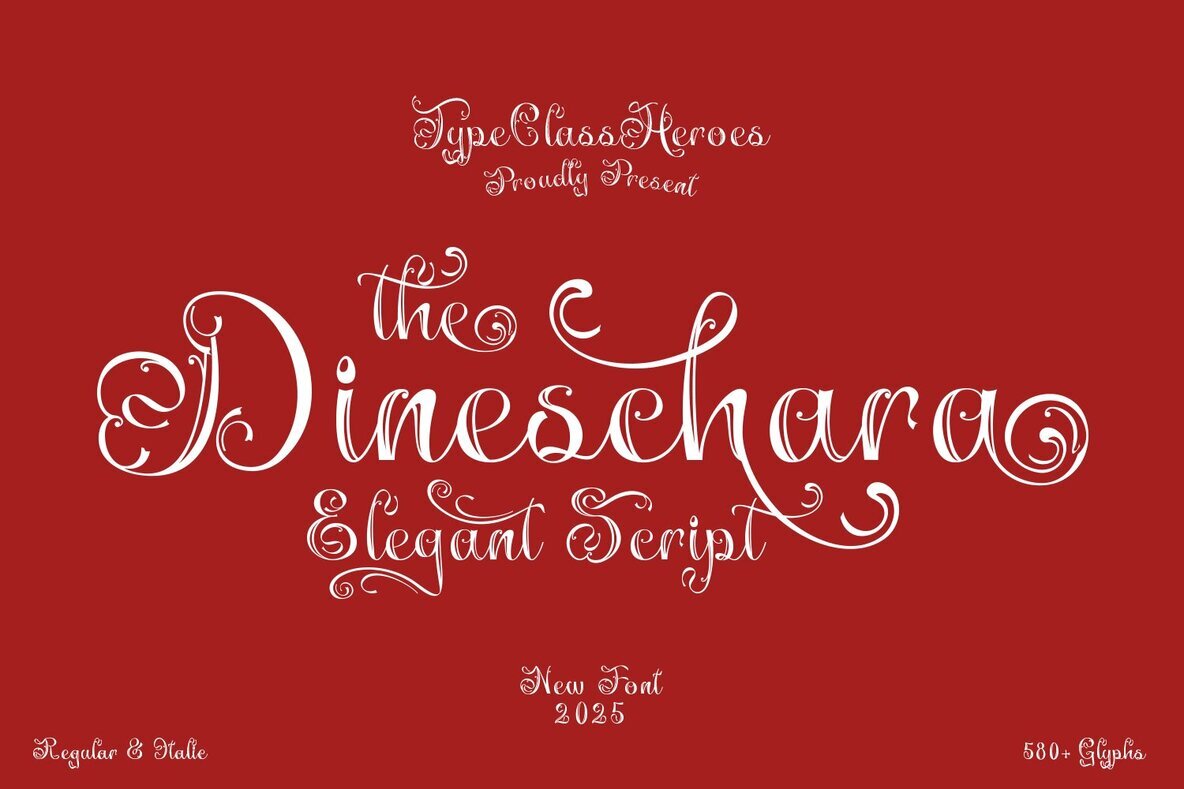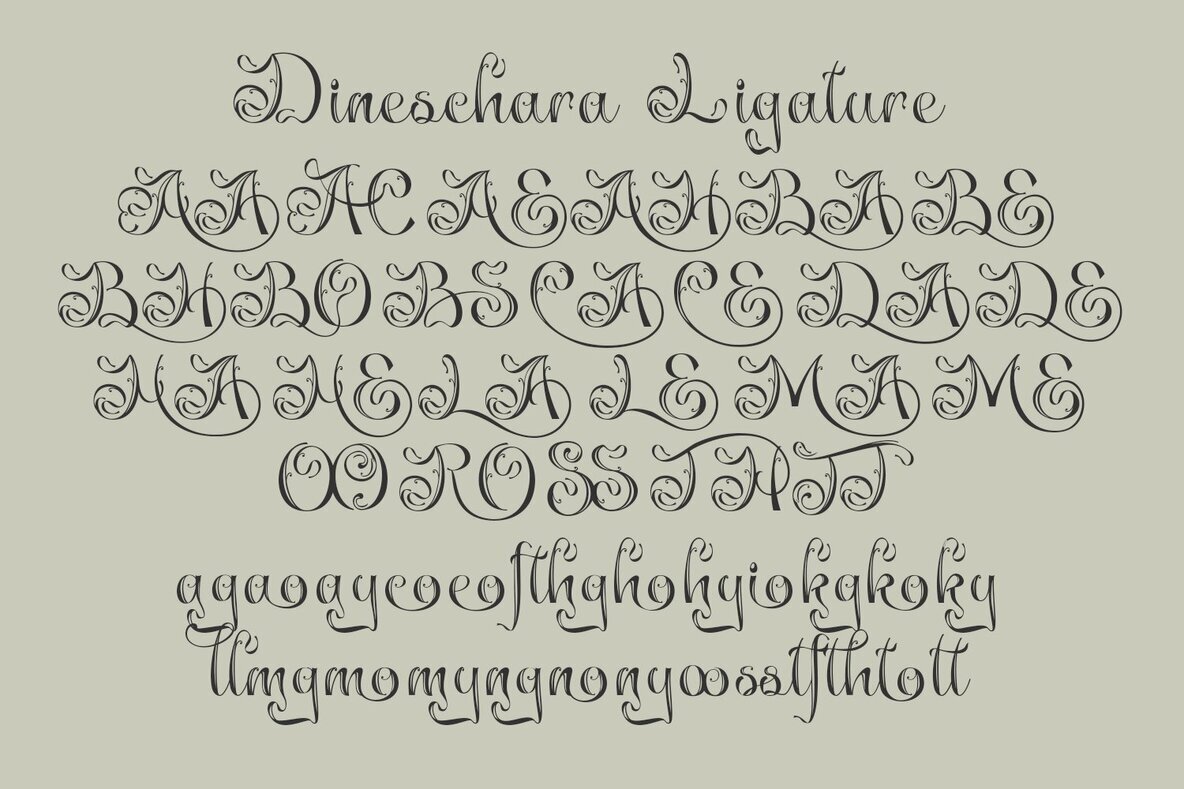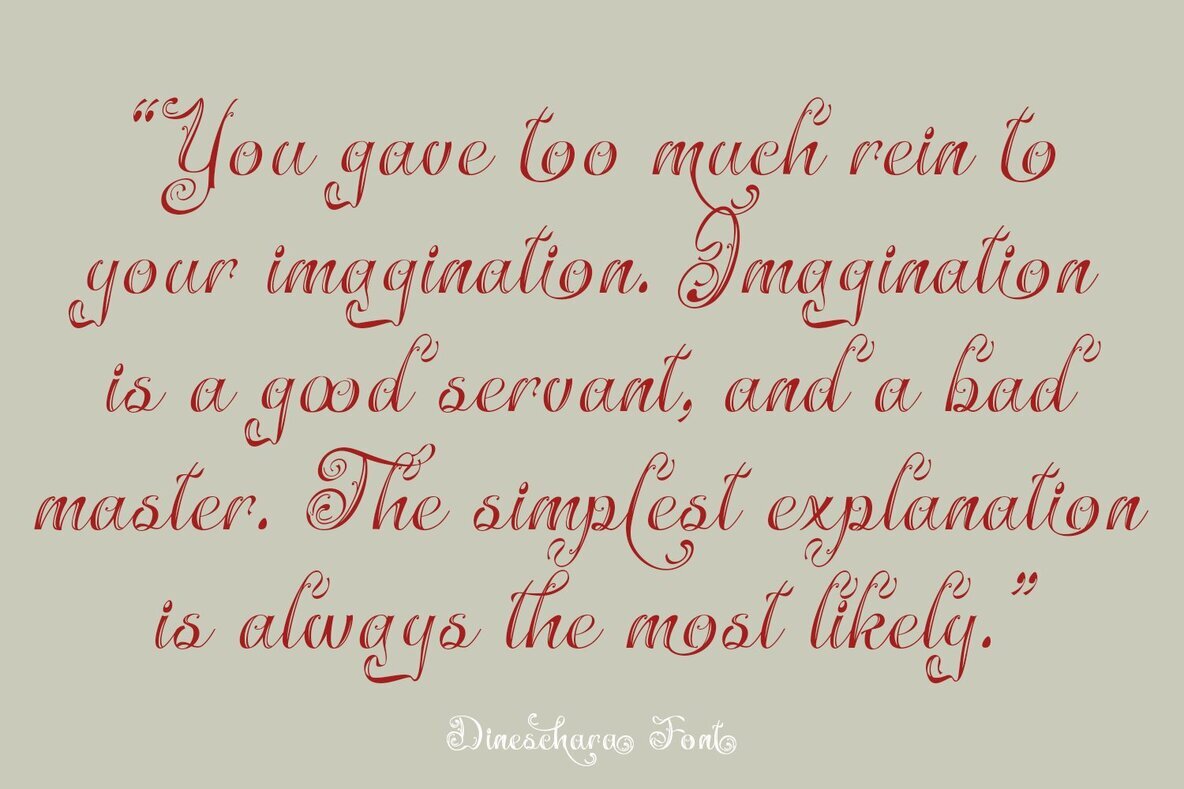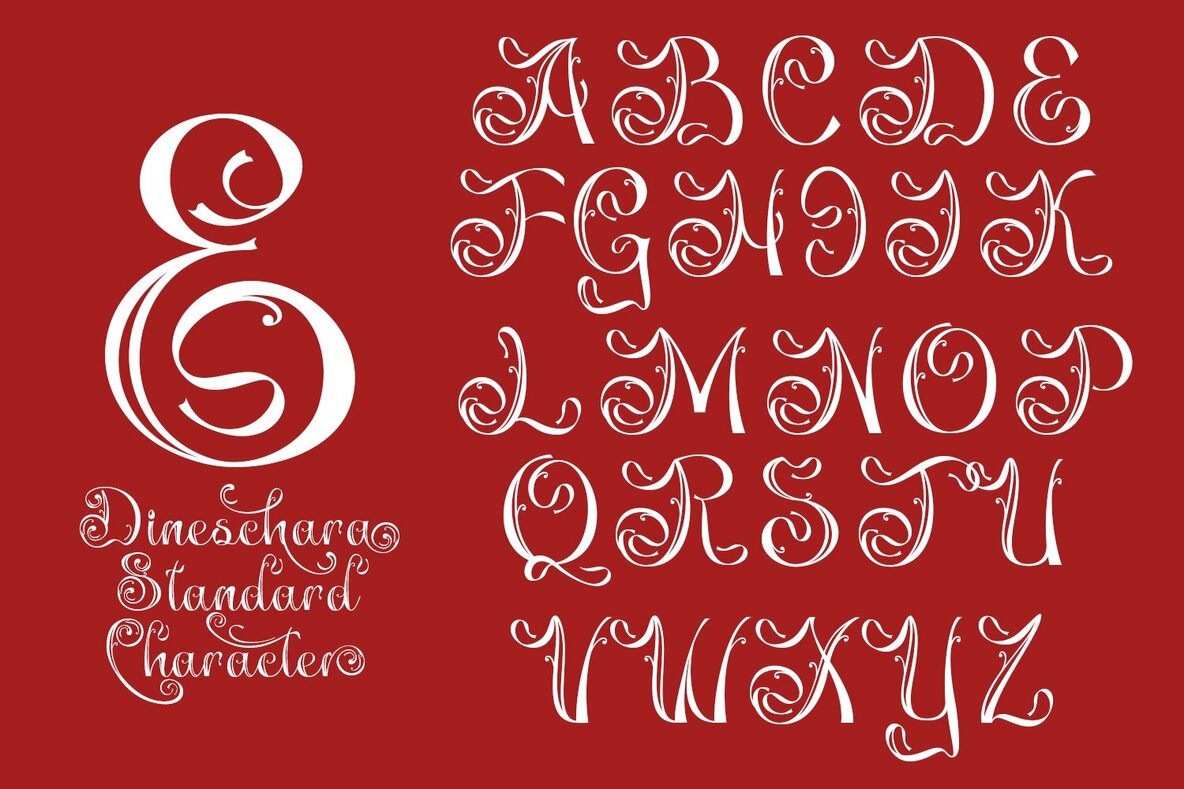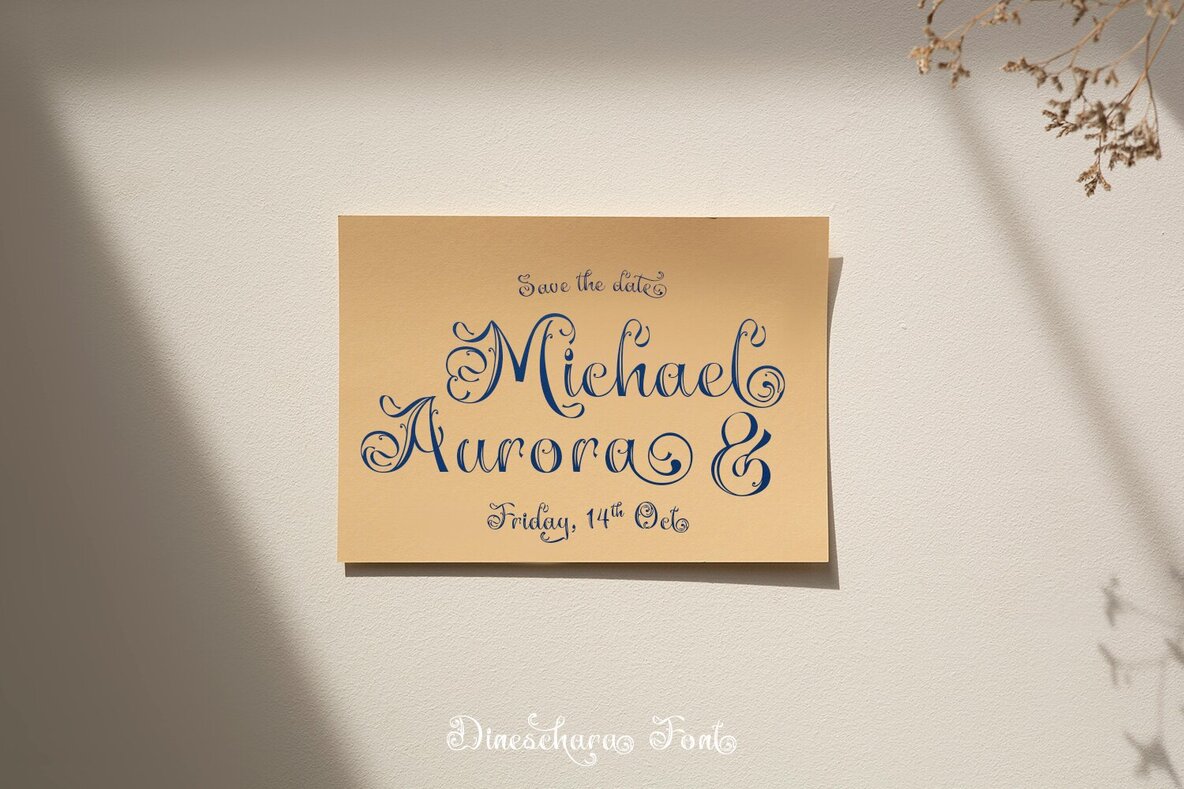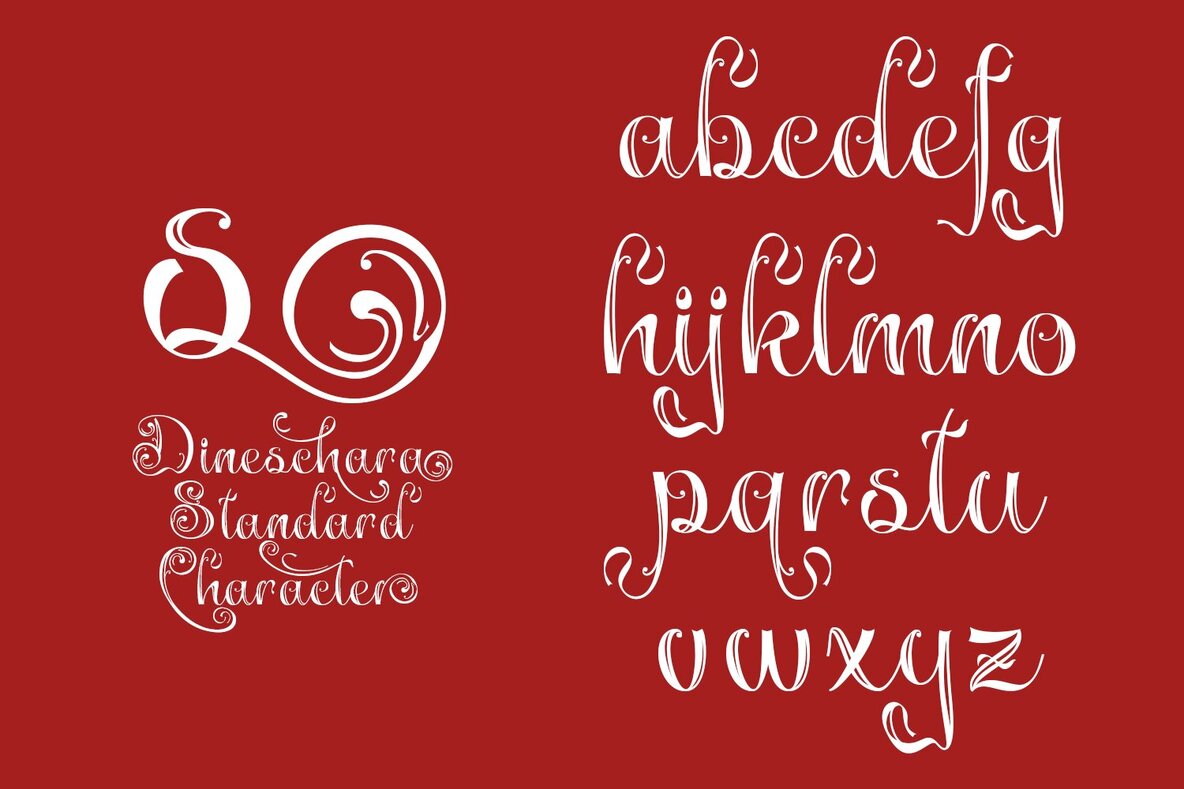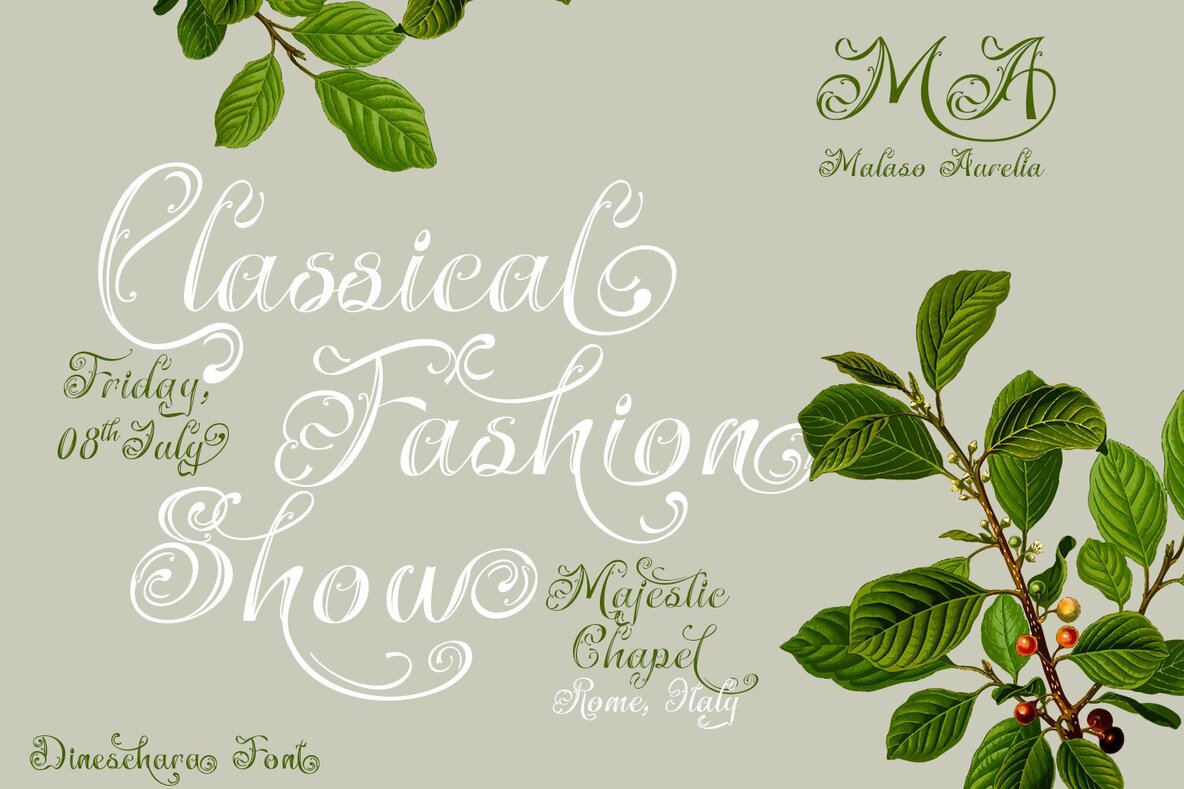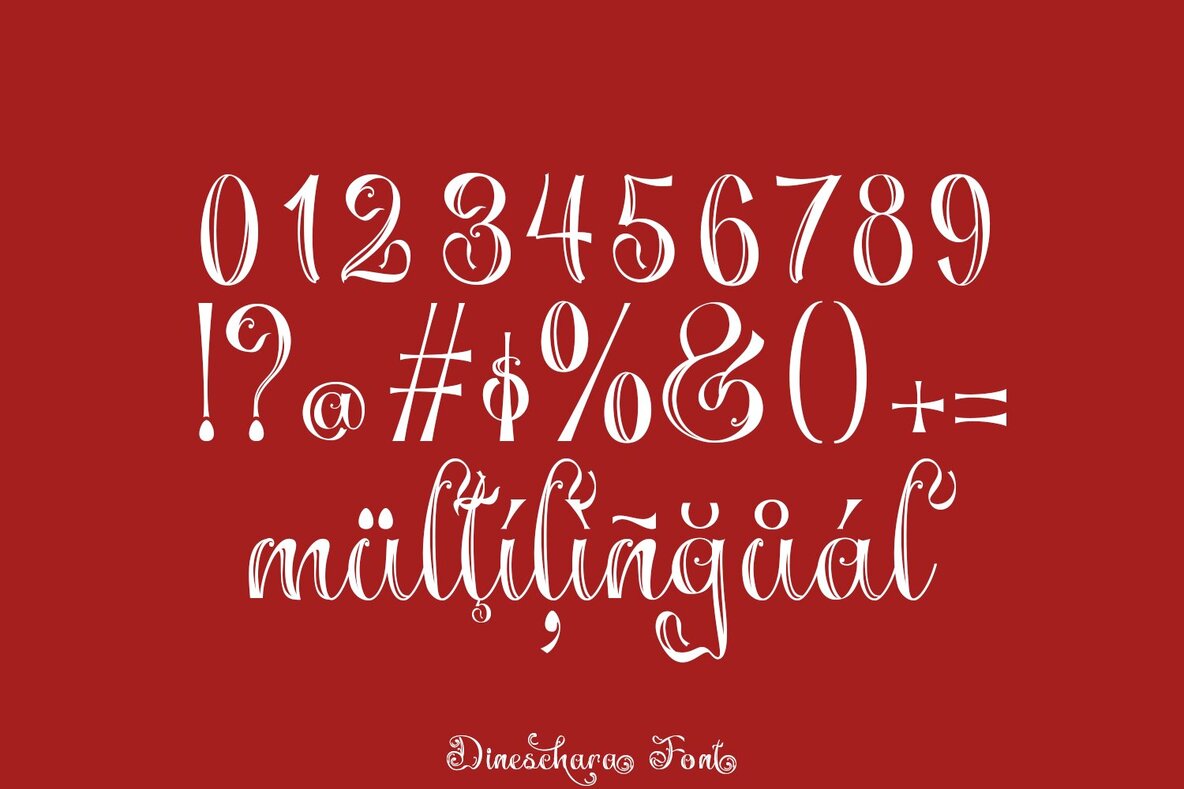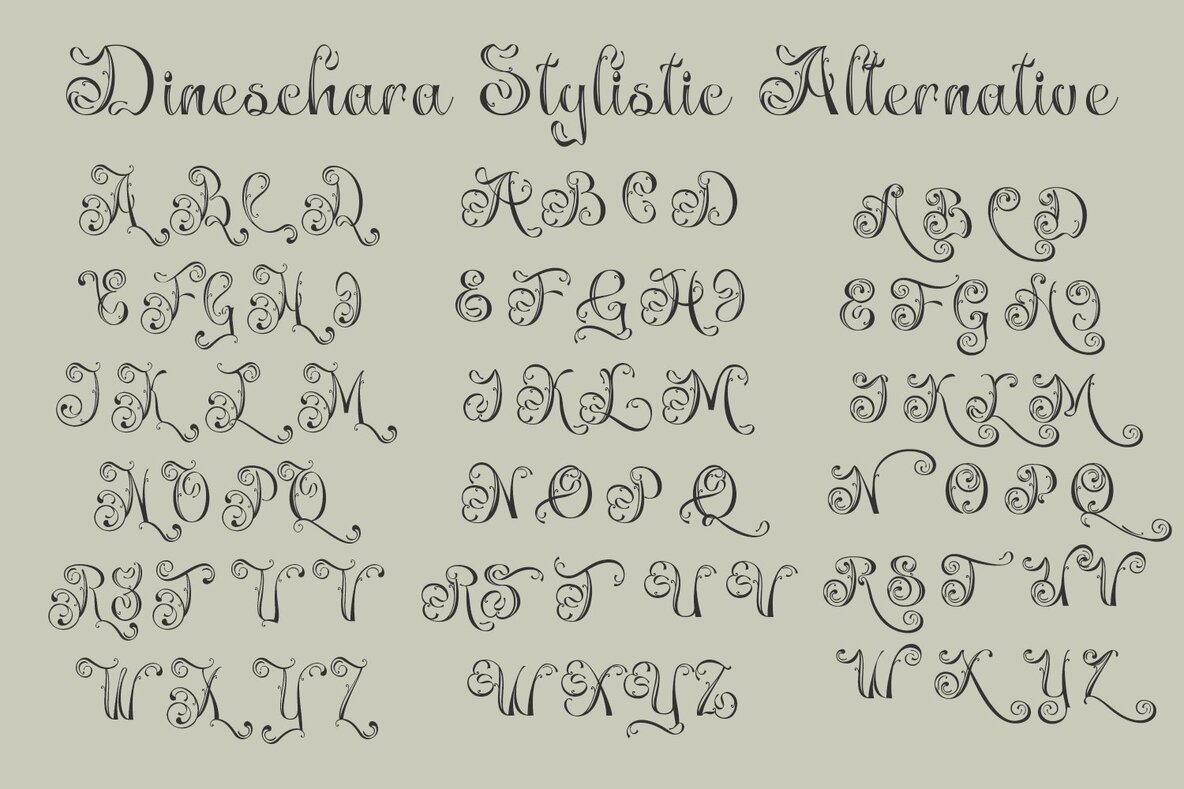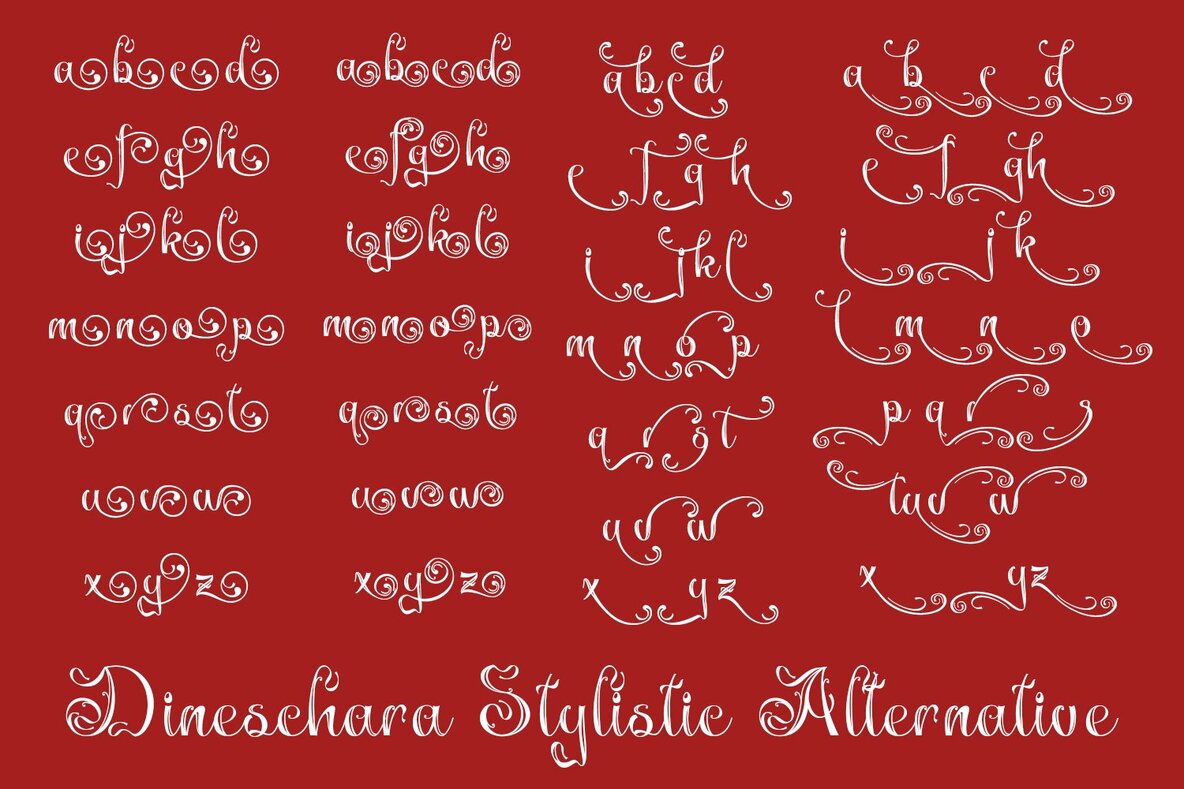
Dineschara Font
Dineschara is a beautifully crafted script font, featuring elegant curves and a modern feel. Each glyph has been meticulously designed to create simple yet stunning words, perfect for conveying sophistication. The ornate swashes and the interplay of thick and thin strokes give it a distinctive style that stands out. Whether you're working with classic themes or heritage brands, Dineschara delivers a timeless elegance that amplifies your designs.Dineschara: Elegant Script Font
Perfect for High-End Applications